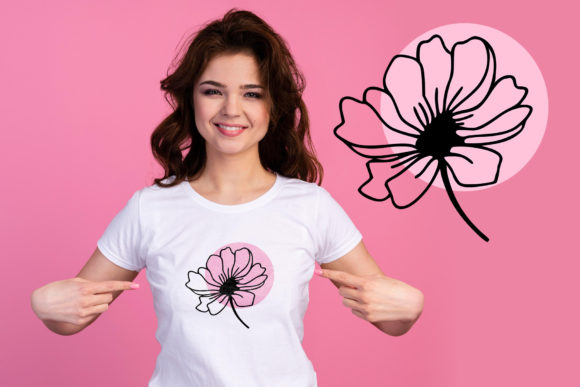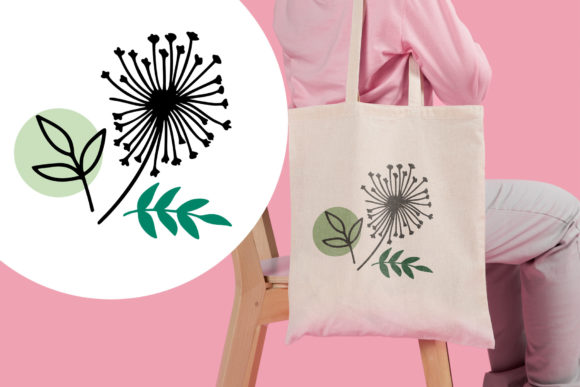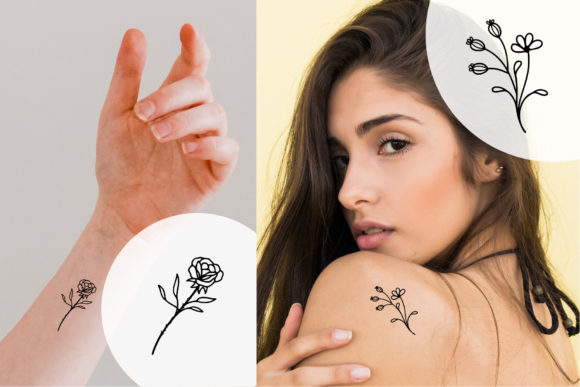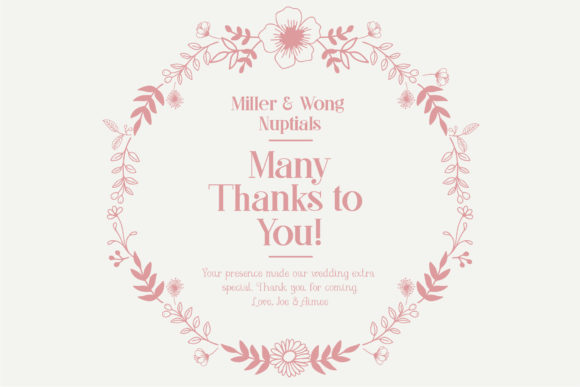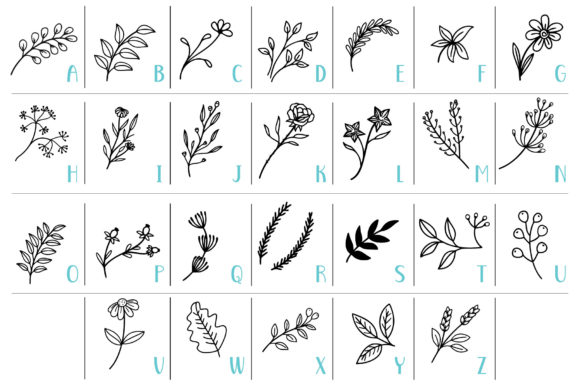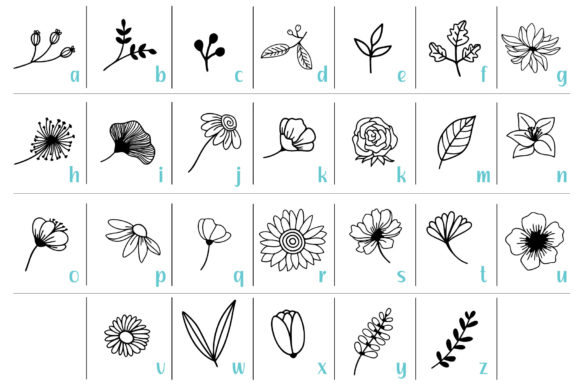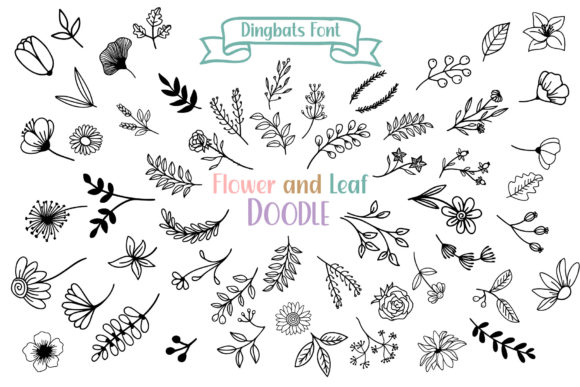
Introducing the Delightful Flower and Leaf Doodle Font
Are you a designer, crafter, or DIY enthusiast looking for a unique and charming font to add a personal touch to your projects? Look no further than the Flower and Leaf Doodle Font! This beautifully designed dingbats font is perfect for anyone who wants to infuse their work with a touch of whimsy and elegance.
What is the Flower and Leaf Doodle Font?
The Flower and Leaf Doodle Font is a carefully crafted dingbats font that features an assortment of delicate flowers, leaves, and other nature-inspired elements. Each character in the font is meticulously designed to resemble a hand-drawn doodle, giving it a charming and organic feel. The font is perfect for use in a variety of projects, from paper crafting and scrapbooking to digital design and illustration.
Why Choose the Flower and Leaf Doodle Font?
There are many reasons why the Flower and Leaf Doodle Font stands out from other fonts. Here are just a few:
- Unique and Versatile: The font features a wide range of characters, including flowers, leaves, stems, and other nature-inspired elements. This makes it perfect for use in a variety of projects, from simple greeting cards to complex digital illustrations.
- Elegant and Whimsical: The font has a delicate, hand-drawn feel that adds a touch of elegance and whimsy to any project. It’s perfect for designers and crafters who want to create work that is both sophisticated and playful.
How to Use the Flower and Leaf Doodle Font
Using the Flower and Leaf Doodle Font is easy! Here are a few tips to get you started:
- Pair it with Other Fonts: The Flower and Leaf Doodle Font pairs beautifully with other fonts, including script fonts, serif fonts, and sans-serif fonts. Experiment with different combinations to find the perfect look for your project.
- Use it for Headers and Titles: The font is perfect for use in headers and titles, where its elegant and whimsical feel can really shine.
- Add it to Your Digital Designs: The font is perfect for use in digital designs, including social media graphics, blog posts, and website headers.
The Flower and Leaf Doodle Font is perfect for designers and crafters who want to add a personal touch to their work. Here are just a few ways you can use the font:
- Paper Crafting: Use the font to create beautiful paper crafts, including greeting cards, scrapbook pages, and journal entries.
- Digital Design: Use the font to create stunning digital designs, including social media graphics, blog posts, and website headers.
- Illustration: Use the font to add a touch of whimsy and elegance to your illustrations.
In conclusion, the Flower and Leaf Doodle Font is a beautiful and versatile dingbats font that is perfect for designers, crafters, and DIY enthusiasts. Its delicate, hand-drawn feel and wide range of characters make it perfect for use in a variety of projects, from paper crafting and scrapbooking to digital design and illustration. So why wait? Add the Flower and Leaf Doodle Font to your projects today, and see the difference it can make!